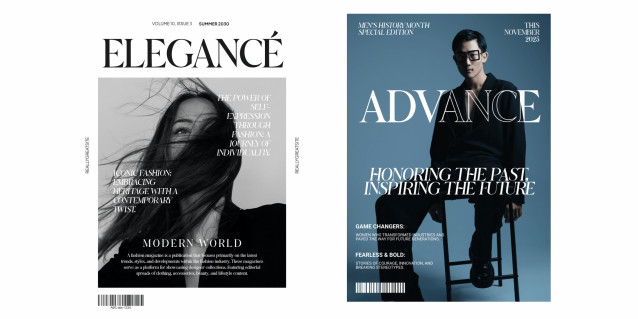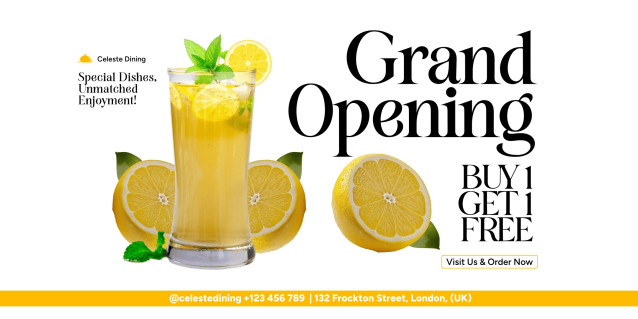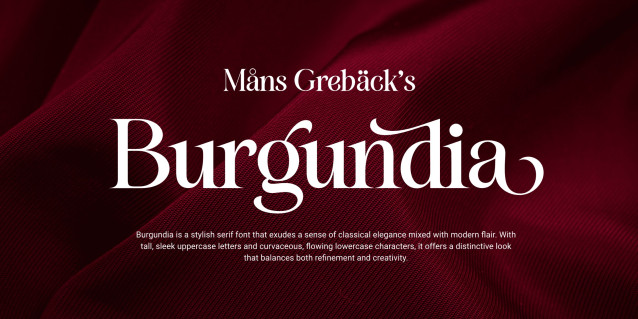
Burgundia Font
Burgundia Font is a stylish serif font that exudes a sense of classical elegance mixed with modern flair. With tall, sleek uppercase letters and curvaceous, flowing lowercase characters, it offers a distinctive look that balances both refinement and creativity. The sharp angles of the capital letters contrast beautifully with the smoothness of the rounded lowercase, providing a sense of sophistication and luxury. The typeface’s fluid strokes create an elegant atmosphere, making it perfect for design projects that require a refined and upscale feel.
Burgundia stands out with its unique personality and charm, which can be used to give your designs an artistic, yet timeless touch.
The font is built with advanced OpenType functionality and guaranteed top-notch quality, containing stylistic and contextual alternates, ligatures, and more automatic and manual features; all to give you full control and customizability.
It has extensive lingual support, covering all Latin-based languages, from North Europa to South Africa, from America to South-East Asia. It contains all characters and symbols you’ll ever need, including all punctuation and numbers.
Mans Greback is a designer known for creating elegant, high-quality fonts that blend traditional letterforms with a modern sensibility. His work is characterized by its careful attention to detail and its ability to convey a powerful visual identity.